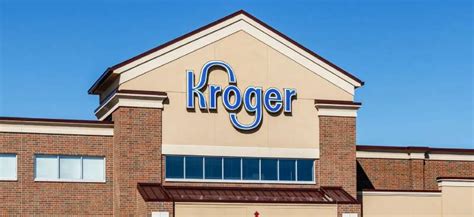
Unveiling The Kroger Logo Font: Secrets Revealed!
Hey there, design enthusiasts and brand sleuths! Ever found yourself staring at a familiar logo and wondering, “What’s that font?” If you’ve spent any time cruising through the aisles of one of America’s largest grocery retailers, then you’ve undoubtedly encountered the iconic Kroger logo font . Today, guys, we’re going on a deep dive, a real investigative journey, to uncover the mysteries behind the Kroger logo font and understand its significance in shaping one of the nation’s most recognizable brands. We’re not just talking about letters on a sign; we’re exploring a critical piece of design that communicates trust, accessibility, and a long-standing heritage to millions of customers daily. Understanding the specific typeface used in the Kroger logo, whether it’s a bespoke design or a cleverly adapted existing font, offers fascinating insights into corporate branding strategies and the subtle power of typography. This isn’t just about identifying a font; it’s about appreciating the meticulous thought that goes into crafting a visual identity that resonates across diverse communities and stands the test of time. The Kroger logo font plays an incredibly crucial role in how consumers perceive the brand, influencing everything from their initial recognition to their subconscious associations with quality and value. It’s a silent ambassador, reinforcing brand values and ensuring consistency across countless touchpoints, from grocery bags to massive store signage. The choice of a particular font isn’t arbitrary; it’s a calculated decision, designed to evoke certain feelings and solidify brand recall. So, buckle up, because we’re about to unveil the secrets behind this ubiquitous yet often overlooked element of the Kroger brand, examining its history, characteristics, and broader impact on corporate identity.
The Iconic Kroger Logo: A Brief History
To truly appreciate the Kroger logo font , we first need to understand the rich history and evolution of the Kroger brand itself. Founded in 1883 by Bernard Kroger, the company started with a simple grocery store in Cincinnati, Ohio, operating under the motto “Stack it high and sell it cheap.” From these humble beginnings, Kroger grew exponentially, adapting to changing consumer needs and market landscapes, eventually becoming one of the largest supermarket chains in the United States. Throughout its long journey, the Kroger brand has undergone various transformations, not just in its business model but also in its visual identity, with the logo serving as a constant touchstone for its customers. The evolution of the Kroger logo font mirrors this journey, subtly shifting over decades to reflect contemporary design trends while retaining an underlying sense of familiarity and reliability. Early logos were often quite ornate, typical of late 19th and early 20th-century typography, often featuring elaborate serifs and complex letterforms. As the company expanded and marketing became more sophisticated, there was a gradual move towards simpler, more streamlined designs, aimed at enhancing readability and broader appeal. The current Kroger logo represents a culmination of this history, carefully balanced between modern aesthetics and a nod to its enduring legacy. Each iteration of the Kroger logo font has been carefully considered, aiming to project a specific image to the consumer – whether that’s trustworthiness, affordability, or fresh produce quality. This ongoing refinement underscores the importance of visual branding in maintaining relevance and fostering customer loyalty in a competitive retail environment. It’s a fascinating look at how a company uses every tool at its disposal, including the nuanced design of its lettering, to communicate its essence and connect with generations of shoppers. Understanding this progression helps us grasp why the current font carries the weight it does, embodying more than a century of retail experience and customer trust. It’s not just a logo; it’s a living piece of history, continually refreshed to stay vibrant and relatable.
Decoding the Kroger Logo Font
Now, for the really juicy stuff, guys! Let’s get down to the nitty-gritty of decoding the Kroger logo font . This is where we pull back the curtain and analyze the specific characteristics that make the Kroger typeface so distinctive. When you look closely at the letters in “Kroger,” you’ll notice several key features that contribute to its overall feel and brand message. The current Kroger logo font primarily uses a customized sans-serif typeface, a stylistic choice that often conveys modernity, cleanliness, and approachability. Unlike serif fonts, which have small decorative strokes or “feet” at the end of their letters, sans-serif fonts are generally simpler, making them highly readable and versatile, especially for large-scale signage and digital applications. The letterforms themselves are often characterized by their geometric precision, balanced proportions, and open counters, which aid in legibility. However, it’s not just a generic sans-serif; there are specific custom elements that give it a unique identity. For instance, the slightly rounded corners on some characters, or the specific way certain strokes terminate, can add a touch of friendliness or softness that prevents the font from feeling too stark or corporate. These subtle design choices are critical in shaping the brand’s personality. Designers carefully consider the weight of the font – how thick or thin the strokes are – as well as its tracking (the spacing between letters) and leading (the spacing between lines of text), all of which impact readability and visual impact. The current iteration of the Kroger logo font appears to strike a perfect balance, being bold enough to command attention but not so heavy as to feel overwhelming. Its simplicity ensures that the brand name is immediately recognizable and easy to remember, which is paramount for a company with such widespread presence. We’ll dive deeper into whether it’s a fully custom design or based on an existing one in the next section, but for now, appreciate the artistry and strategic thinking behind these seemingly simple letterforms. It’s a masterclass in how typography communicates unspoken messages about a brand’s values and promise to its customers, quietly building recognition and trust with every glance.
Is it a Custom Font or an Existing Typeface?
This is the million-dollar question for many designers and brand enthusiasts dissecting the Kroger logo font : is it a custom creation or an adaptation of an existing typeface? Well, guys, the answer often lies somewhere in the middle, but for major brands like Kroger, it’s highly probable that their logo utilizes a bespoke or heavily customized font. While some earlier iterations of the Kroger logo might have employed standard, commercially available fonts that were popular at the time, the modern and highly distinctive Kroger logo font you see today is almost certainly the result of professional typographers and graphic designers crafting something unique. The primary reason for this approach is brand differentiation. In a crowded marketplace, a custom typeface helps a brand stand out, making its visual identity truly proprietary and instantly recognizable. If Kroger simply used a generic font like Helvetica or Arial, it would blend in rather than shine. Custom fonts allow for precise control over every curve, every line, and every spacing element, ensuring that the typeface perfectly aligns with the brand’s personality and values. This means that while the current Kroger logo font might bear resemblances to certain popular sans-serif typefaces, these similarities are likely coincidental or intentional design inspirations rather than direct copies. Designers often draw inspiration from established font families but then make significant modifications—adjusting character widths, refining terminals, altering baseline shifts, and creating unique ligatures or stylistic alternates—to create a signature look. This process transforms a generic font into a unique brand asset, making it impossible to find an exact match off-the-shelf. Furthermore, a custom logotype provides legal protection, preventing competitors from easily replicating the exact visual identity. So, while you might find fonts that look similar to the Kroger logo font , a true replica is unlikely to be publicly available because it is a carefully guarded part of Kroger’s intellectual property. This commitment to unique typography reinforces Kroger’s dedication to its brand image and its long-term strategy for market leadership, demonstrating that every visual element, down to the smallest serif (or lack thereof), is a strategic choice.
The Characteristics of the Kroger Font
Let’s really zoom in on the specific characteristics that define the current Kroger logo font , giving it that familiar yet strong presence. As we’ve touched upon, the font is primarily a sans-serif , which means it lacks the small decorative strokes at the end of letterforms. This immediately gives it a clean, modern, and uncluttered appearance, making it highly legible even from a distance, which is crucial for supermarket signage. But it’s not just any sans-serif. Observe the letters closely, and you’ll notice a thoughtful blend of geometric precision and subtle humanist touches. For instance, the letterforms exhibit a relatively uniform stroke weight , meaning the thickness of the lines forming the letters is fairly consistent, contributing to its balanced and stable feel. There isn’t a stark contrast between thick and thin strokes, which is common in more classic serif fonts. Another key characteristic is the presence of gently rounded corners on many of the characters. While not overtly soft, these subtle curves on letters like the ‘K’, ‘R’, and ‘G’ soften the otherwise stark geometric nature of a sans-serif, adding a touch of approachability and friendliness. This design choice helps to convey a welcoming and consumer-friendly image, rather than a rigid or overly corporate one. The letter spacing, or kerning , is also impeccably managed. The letters feel comfortably nestled together without being cramped, ensuring excellent readability and a harmonious visual flow. This tight yet breathable spacing contributes to the logotype’s compact and impactful presentation. Furthermore, the overall proportions of the characters are well-balanced, contributing to a sense of stability and reliability. No letter feels out of place or disproportionately weighted. The uppercase ‘K’ and ‘R’ often feature distinctive, slightly extended or uniquely angled terminals that differentiate them from generic sans-serifs. These small, custom flourishes are what make the Kroger logo font truly unique and memorable, embedding a distinct visual signature into the brand. These characteristics collectively communicate a brand that is modern, reliable, accessible, and friendly—all vital attributes for a major grocery retailer. It’s a testament to how meticulous typographical choices can quietly shape perception and solidify a brand’s identity in the minds of millions of customers, ensuring that the visual experience is as consistent and trustworthy as the products it offers. Every detail, from the curve of an ‘o’ to the angle of a ‘k’, is a deliberate choice made to reinforce Kroger’s promise to its shoppers.
Similar Fonts and Where to Find Them
Okay, so we’ve established that the Kroger logo font is likely a custom or heavily modified typeface, meaning you won’t find an exact, publicly available download. But for all you designers, students, or just curious folks out there who love the aesthetic and want to find something similar for your own projects, fear not! There are plenty of fantastic typefaces that share a similar clean, modern, and approachable sans-serif vibe. When looking for alternatives, guys, focus on fonts that have a clear, unembellished structure, good legibility, and perhaps those subtle humanist touches like slightly rounded edges or open counters that soften the geometric feel. A great starting point for exploring similar fonts would be to look into well-established sans-serif families. For example, fonts like Open Sans or Montserrat from Google Fonts offer a friendly and versatile sans-serif appearance with good readability, making them excellent choices for web or print projects that require a clean, modern aesthetic similar to the Kroger logo font . Lato is another excellent option; it’s a semi-rounded, robust sans-serif that exudes warmth and friendliness, which aligns well with the approachable feel of Kroger’s branding. If you want something a bit more professional but still incredibly clear, Roboto or Source Sans Pro could be strong contenders. For those seeking something with a touch more distinctiveness, similar to the custom elements in the Kroger logo, you might explore fonts with a slightly wider stance or unique character proportions. Sometimes, exploring typefaces from independent foundries can also yield interesting results, as they often push the boundaries of traditional font design. While you won’t get an identical match, the goal here is to capture the essence —that blend of reliability, modernity, and accessibility that the Kroger logo font so effectively conveys. Don’t be afraid to experiment with different weights (light, regular, bold) and adjust the letter spacing (kerning) in your chosen font to fine-tune its appearance and get closer to the desired look. Many font identification tools, like WhatTheFont or Font Squirrel’s Matcherator, can help you by analyzing an image of the Kroger logo and suggesting commercially available fonts with similar characteristics. Remember, the key is to find a font that not only looks good but also effectively communicates the values and personality of your own brand or project, drawing inspiration from the mastery of the Kroger logo font while forging your own unique path.
Why Font Choice Matters: Kroger’s Brand Identity
Understanding the specifics of the Kroger logo font goes far beyond mere aesthetics; it plunges into the very heart of brand identity and consumer psychology. Why does Kroger, and indeed any successful brand, invest so much time and effort into perfecting its typography? The answer is simple yet profound: font choice matters immensely because it’s a silent communicator of values, a powerful tool for building trust, and a cornerstone of brand recognition. For Kroger, a company built on a century of grocery retail, the chosen font must convey stability, reliability, and approachability. The clean, modern sans-serif nature of the Kroger logo font achieves this beautifully. It suggests efficiency and forward-thinking, while its subtle softness and balanced proportions ensure it doesn’t come across as cold or impersonal. In a business where consumers make daily decisions about where to spend their hard-earned money on essential goods, a brand’s visual language—including its font—needs to instill confidence and a sense of welcome. If Kroger’s logo font were overly decorative or difficult to read, it could inadvertently communicate complexity or a lack of clarity, which would be detrimental to a brand built on everyday convenience. Conversely, a font that is too aggressive or trendy might alienate a broad customer base that values tradition and consistency. The Kroger logo font strikes a delicate balance, being contemporary enough to appeal to new generations of shoppers while retaining a timeless quality that resonates with long-standing customers. It contributes to a cohesive brand experience across all touchpoints: from store signage and product packaging to digital advertisements and online platforms. This consistency builds familiarity and loyalty, making Kroger a trusted household name. Every time you see that logo, guys, the font is quietly reinforcing the brand’s promise—quality products, fair prices, and a friendly shopping experience. This strategic use of typography is a prime example of how even the seemingly small details in design play a gigantic role in shaping a brand’s public image and fostering deep connections with its audience. It’s a testament to the power of design to evoke emotions and communicate effectively without uttering a single word, proving that a well-chosen font is an invaluable asset in the complex world of branding.
Practical Applications and Inspiration
Alright, so we’ve dissected the Kroger logo font and understood its profound impact on brand identity. But how can this knowledge inspire your practical applications, whether you’re a budding designer, a small business owner, or just someone interested in branding? The insights gained from studying the Kroger logo font are incredibly valuable. Firstly, it teaches us the importance of legibility and clarity . For any brand, especially one with widespread public exposure, the text in its logo must be immediately understandable. Opting for clean, well-spaced typefaces ensures your message isn’t lost in translation. Secondly, it highlights the power of subtle differentiation . While the Kroger font is a sans-serif, it’s not generic. Those small, unique curves and precise kerning are what make it distinct. When designing your own logo or brand identity, guys, think about how you can add unique, subtle touches to a more conventional font to make it your own, rather than reinventing the wheel entirely. This approach balances familiarity with uniqueness. Thirdly, the Kroger example underscores the need for consistency across platforms . Your chosen font needs to look good and maintain its character whether it’s on a massive billboard, a tiny app icon, or a business card. This means selecting a versatile typeface or working with a designer to create a custom one that scales well and remains impactful in various contexts. For small businesses, while a custom font might be out of budget, carefully choosing a professionally designed open-source font that aligns with your brand values can achieve a similar effect of sophistication and reliability. Consider the emotional impact of different font styles: Do you want to convey playfulness, seriousness, trustworthiness, or innovation? The Kroger logo font , with its blend of modern cleanliness and subtle warmth, aims for broad appeal and reliability, something many brands can emulate. Furthermore, don’t be afraid to utilize negative space and proper layout, as even the perfect font can look bad if poorly implemented. Experiment with letter spacing and alignment to create a harmonious look. By taking cues from the strategic and thoughtful design behind the Kroger logo font , you can make informed decisions about your own visual communication, ensuring your brand speaks volumes through its typography. It’s about crafting an identity that resonates, stands the test of time, and effectively communicates your core message to your audience, building recognition and trust one beautifully crafted letter at a time. The lessons here are universal: good design is intentional, strategic, and always focused on the audience.
In conclusion, our journey into the world of the Kroger logo font reveals that typography is far more than just choosing pretty letters. It’s a fundamental pillar of brand identity, silently communicating core values, fostering recognition, and building a lasting connection with consumers. The thoughtfully designed, clean, and subtly friendly sans-serif that defines the current Kroger logo font is a testament to how meticulous design choices contribute to the enduring success of a major corporation. It’s a blend of history, modernity, and strategic visual communication that continues to shape how millions perceive one of America’s most iconic grocery brands.